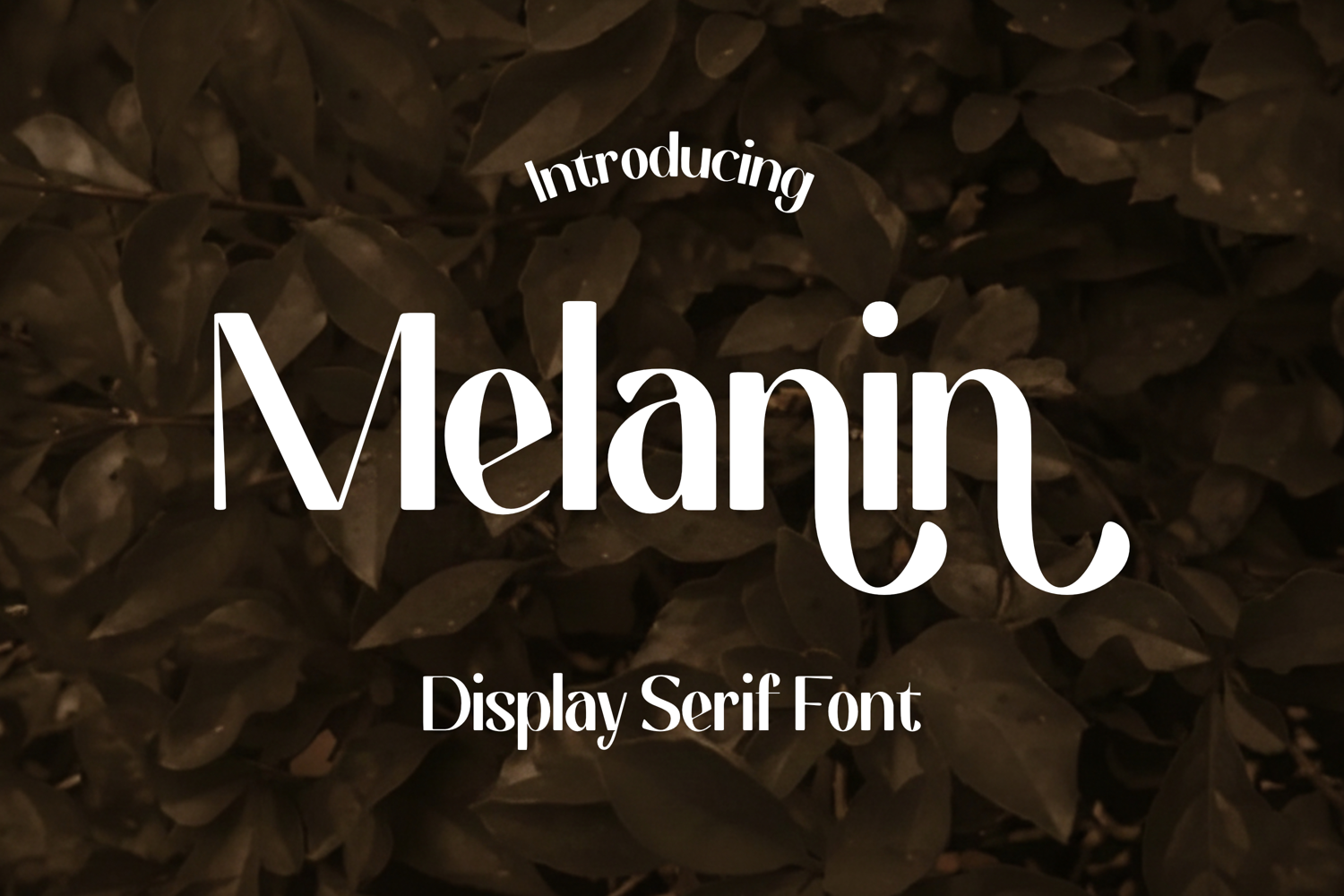
Melanin - Display Sans Font
Melanin is a refined Display Sans Font that blends modern elegance with artistic curves. Designed to stand out, Melanin delivers graceful letterforms, smooth contrast, and a unique personality that instantly elevates any layout. Perfect for branding, packaging, editorial titles, logos, posters, and luxurious visual projects. Give your designs a sophisticated, timeless touch with Melanin — a display sans made to be remembered.